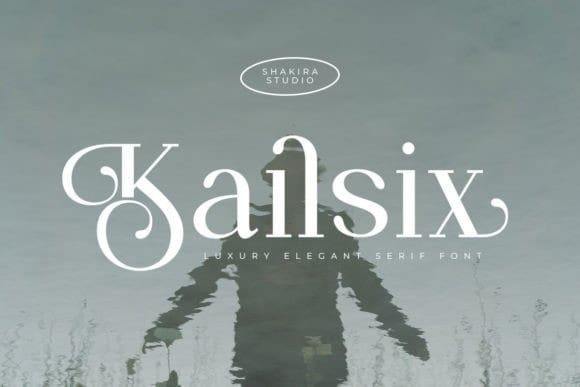
Kailsix Font
Kailsix Font is a luxurious and elegant serif typeface that exudes sophistication and refinement. With graceful letterforms, subtle curves, and meticulous detailing, it embodies timeless beauty and class. Perfect for high-end branding, editorial designs, and projects that demand an exquisite touch of elegance and style.